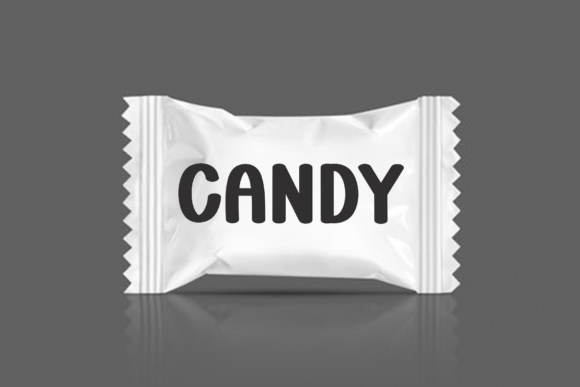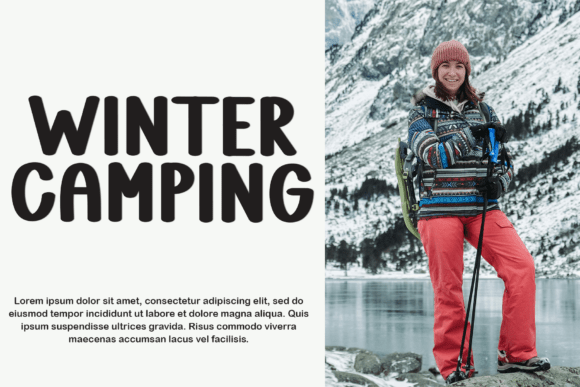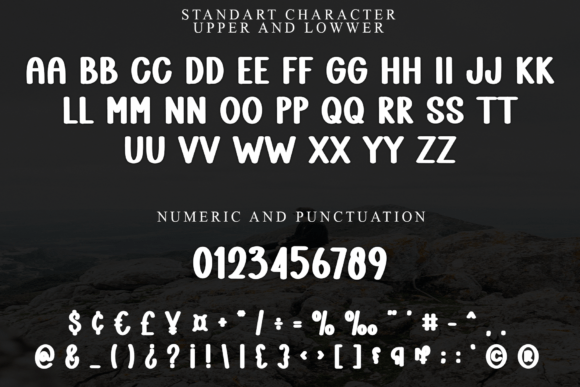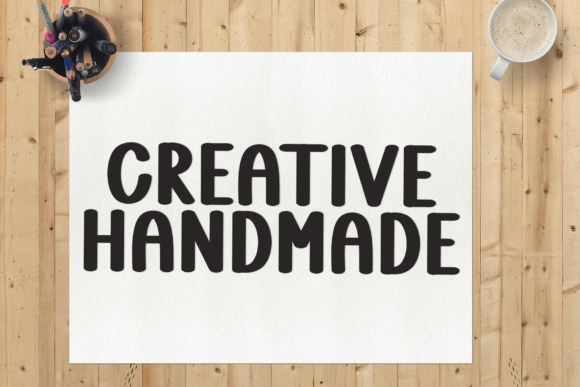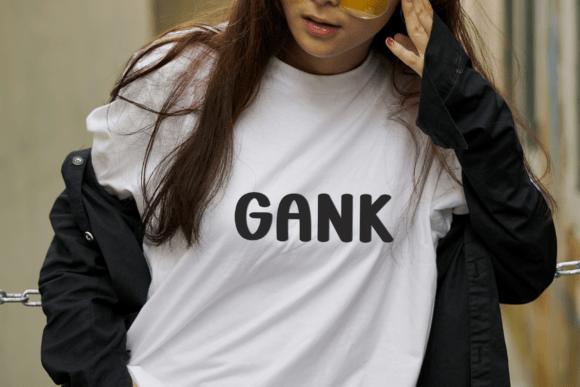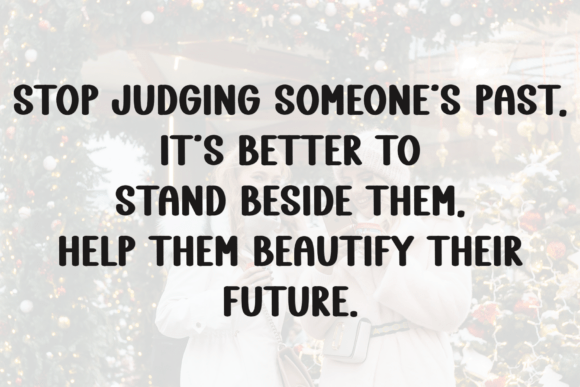
Introduction to Mister Pudding Font
Mister Pudding is a festive and merry typeface that captures the spirit of the holiday season.
Key Features of Mister Pudding Font
Why Choose Mister Pudding Font?
Mister Pudding Font offers exceptional quality and versatility, making it a valuable addition to your design toolkit. Whether you’re creating for personal projects or commercial use, Mister Pudding Font delivers professional results.